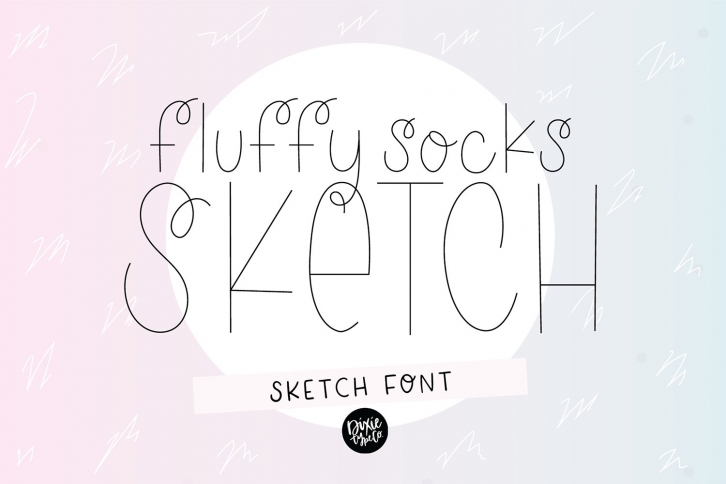
FLUFFY SOCKS Sketch is a trendy and unique font with an authentic style. It was designed by Dixie Type Co and it's a great choice for creative people who need such a font. It was released on April 8, 2021 and the file size is 19.60 MB. FLUFFY SOCKS Sketch will add an organic vibe to any design idea!